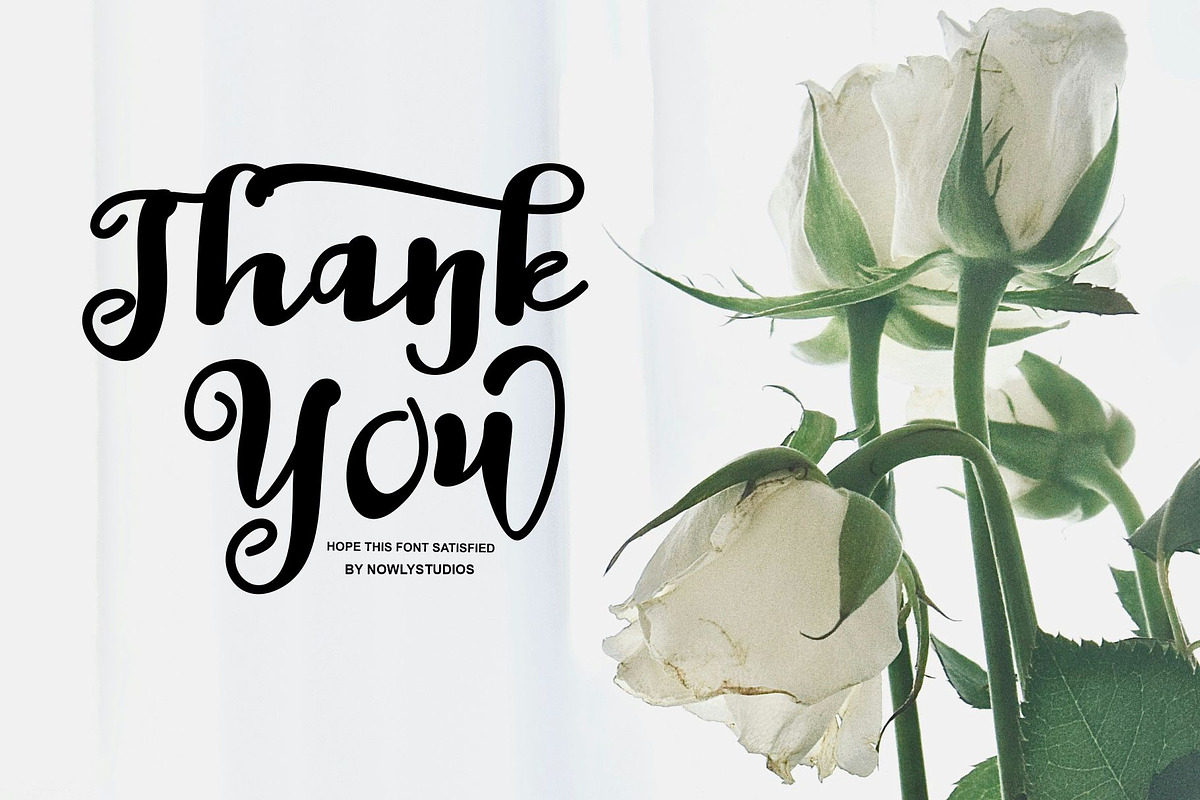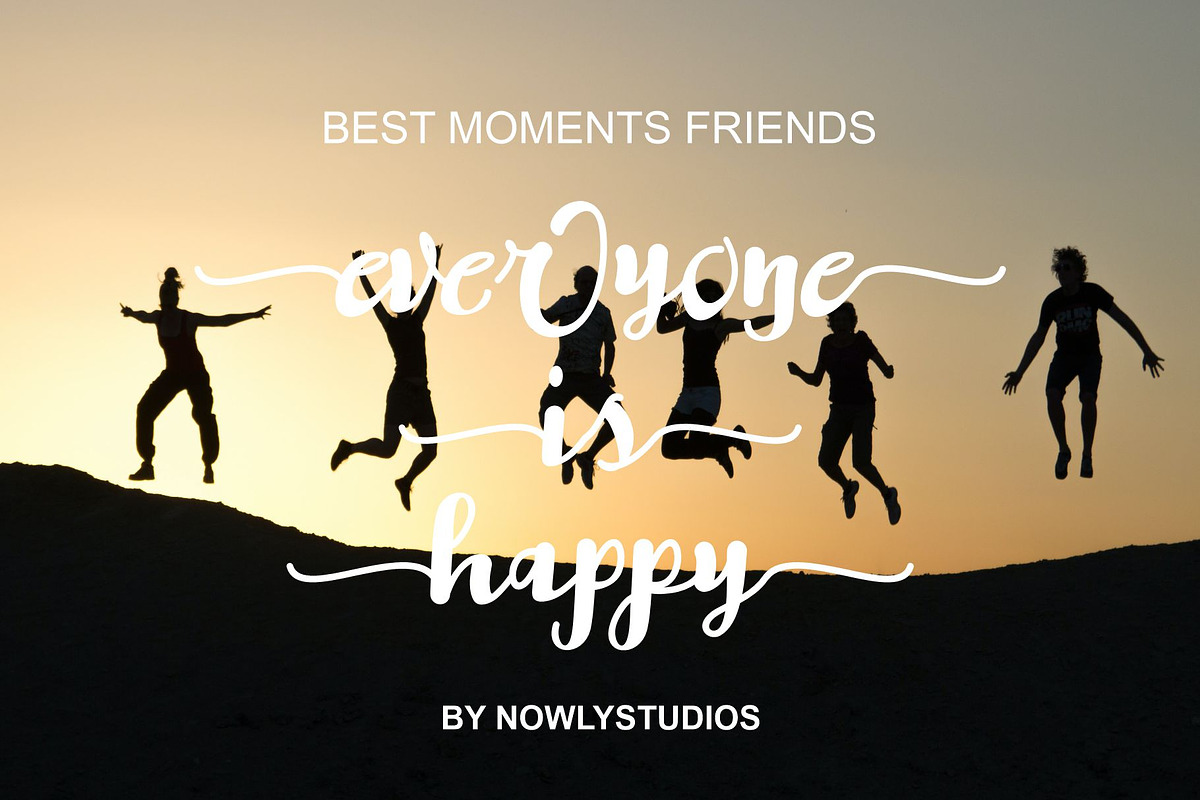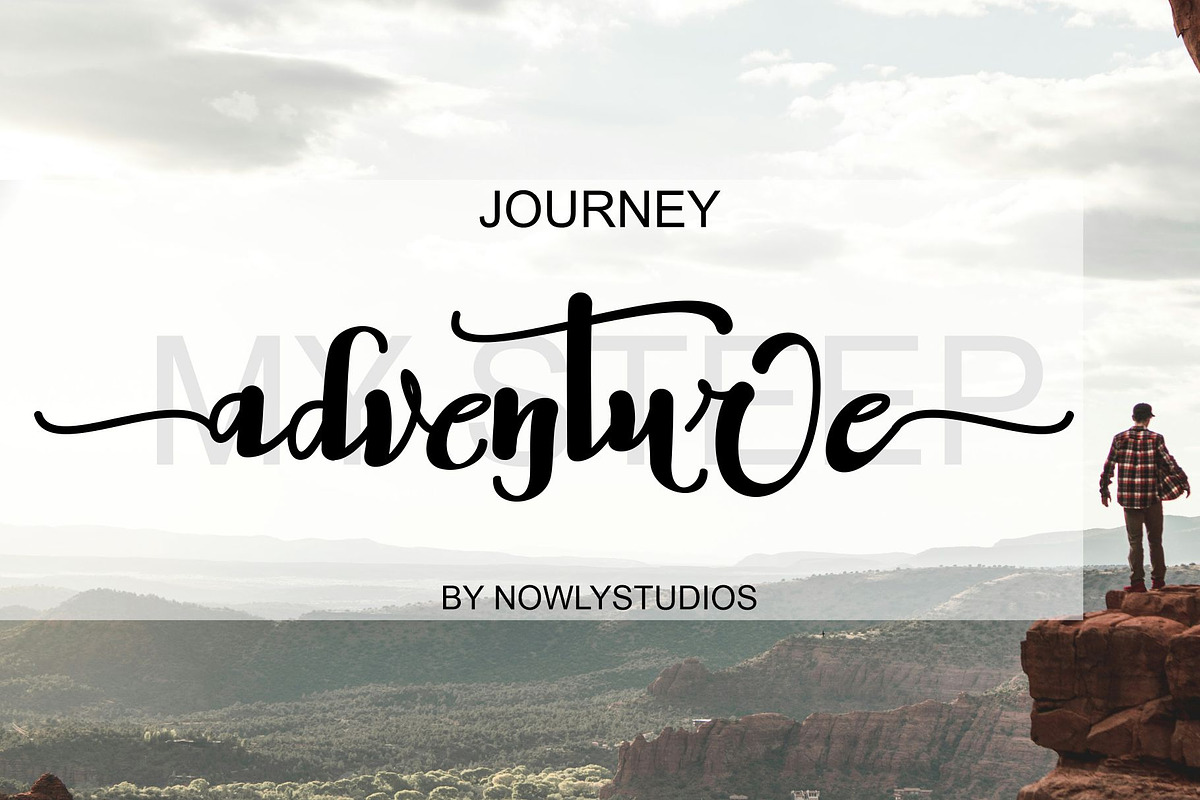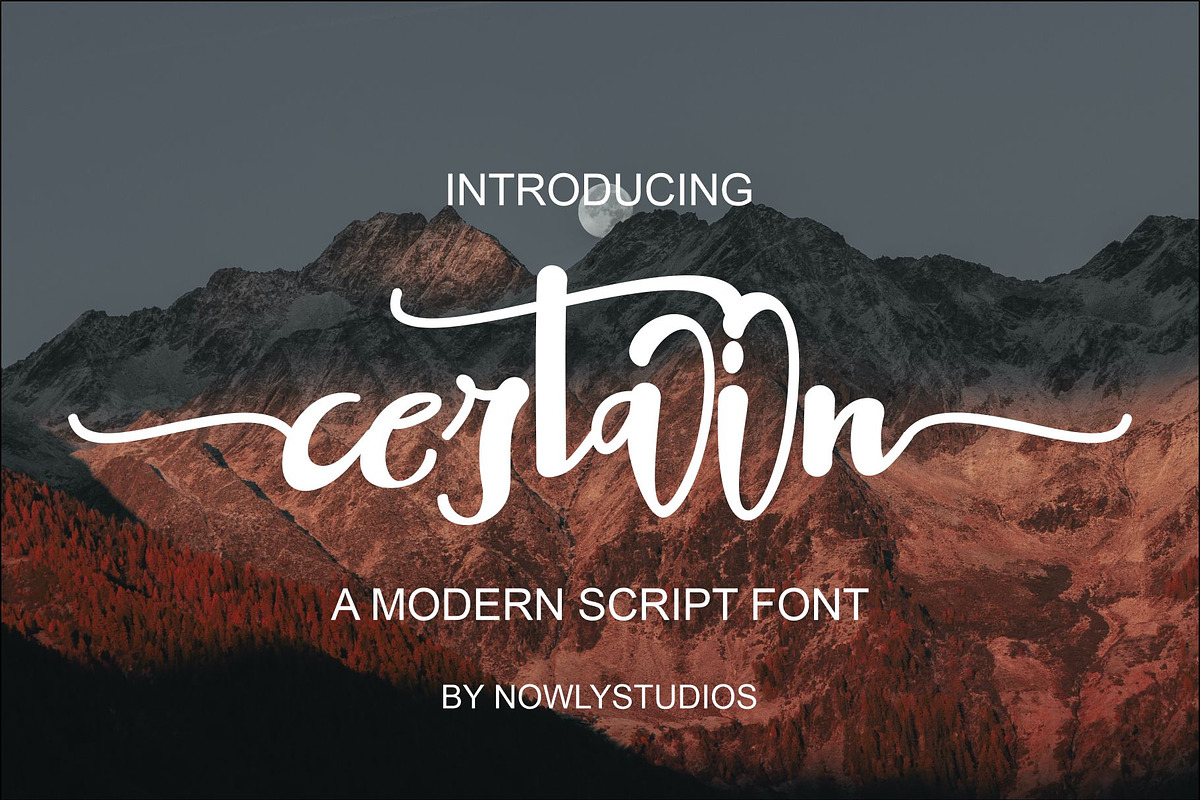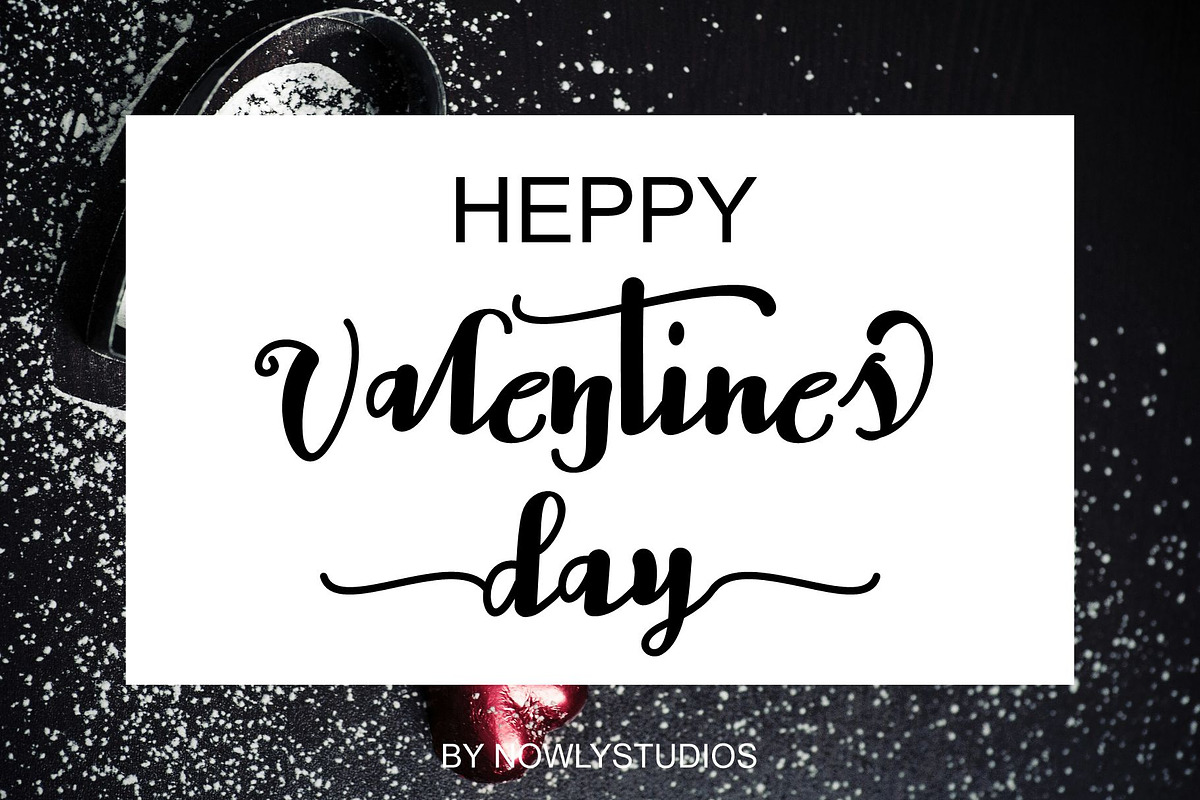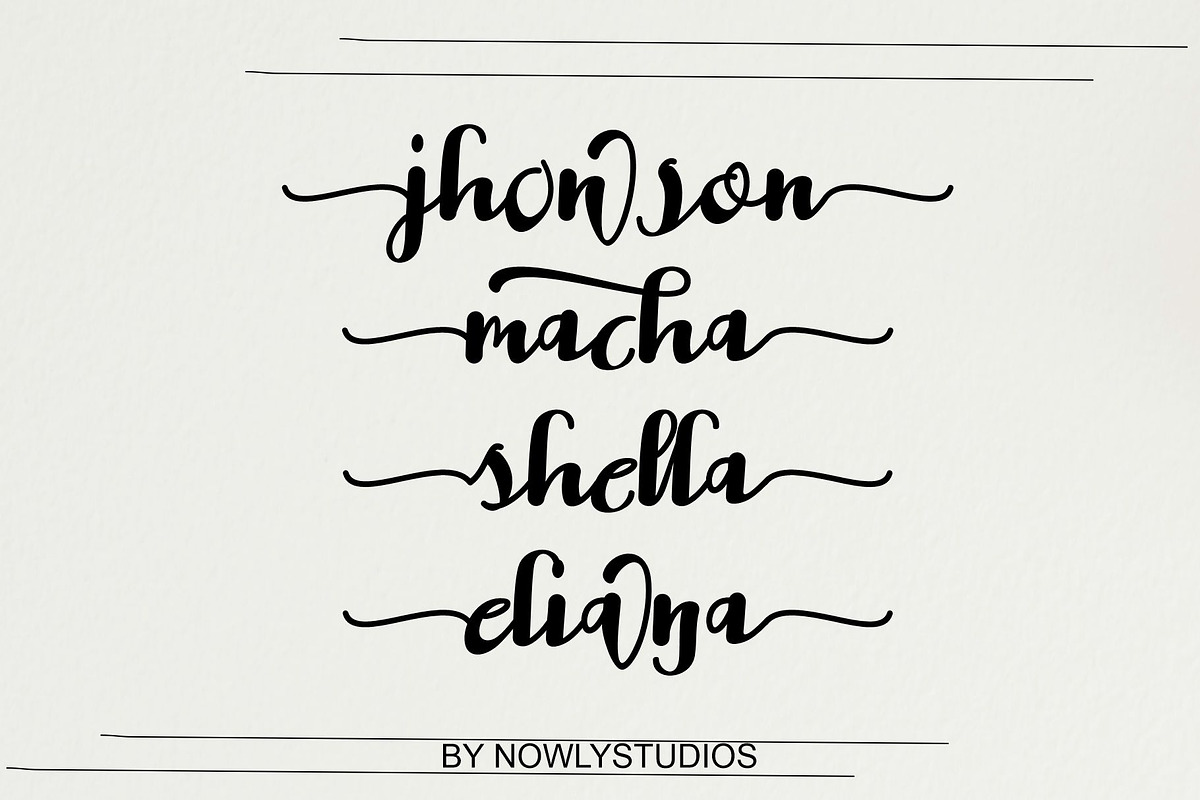
Certain Script
Certain – Elegant Script Font that has a distinctive character that is very thick and elegant to use
Certain is a relaxed and flowing Calligraphy Font. Incredibly versatile, this font fits a wide pool of designs, elevating them to the highest levels. Add this font to your favorite creative ideas and notice how it makes them come alive!